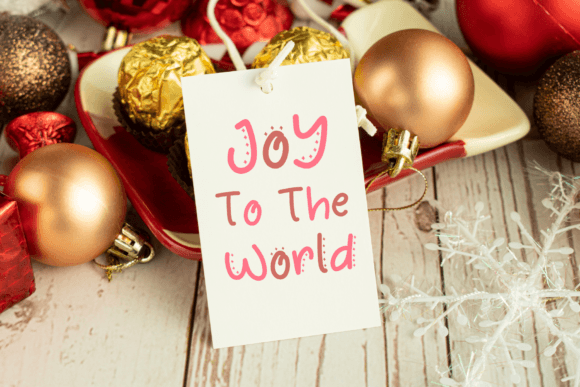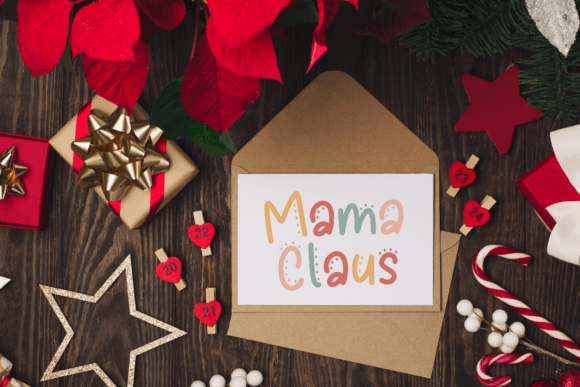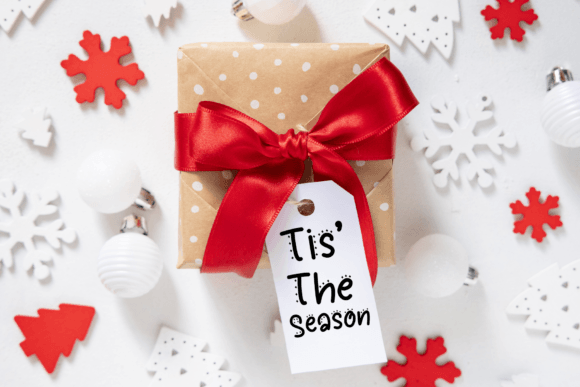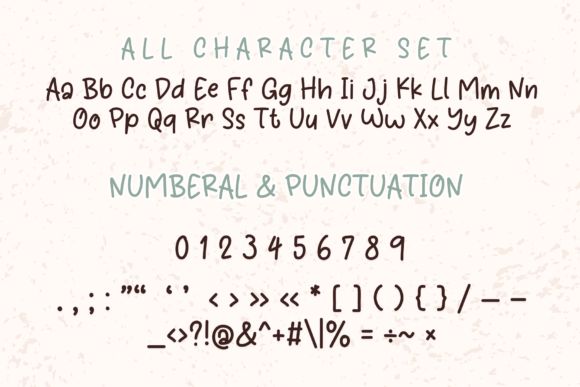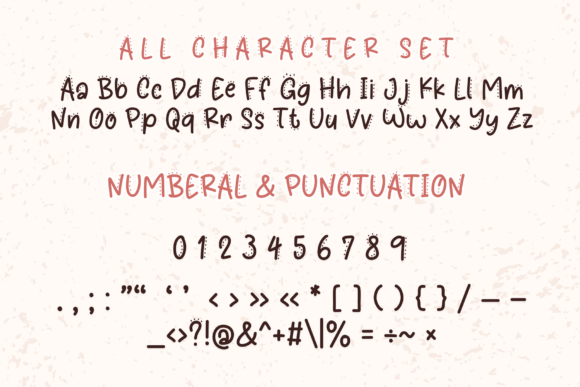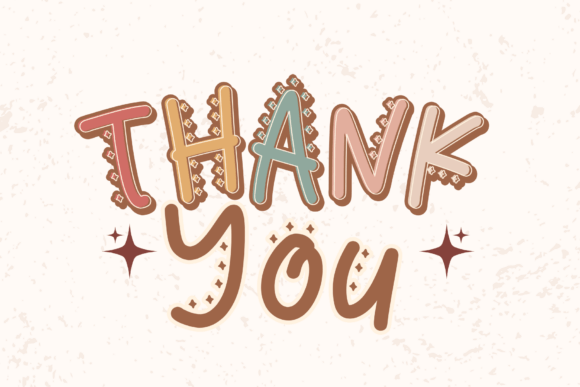
Introduction to Magical Christmas Font
Immerse yourself in the enchanting allure of Magical Christmas, a delightfully charming, two-style font.
Effortlessly infusing an authentic, playful spirit into your artwork, this font is an ideal selection for countless creative ventures, including compelling logos, inspired branding, captivating blog posts and engaging advertisements Its whimsical design also fits fabulously onto invites, giving an added touch of charm to greeting cards, planners, or photo albums.
Key Features of Magical Christmas Font